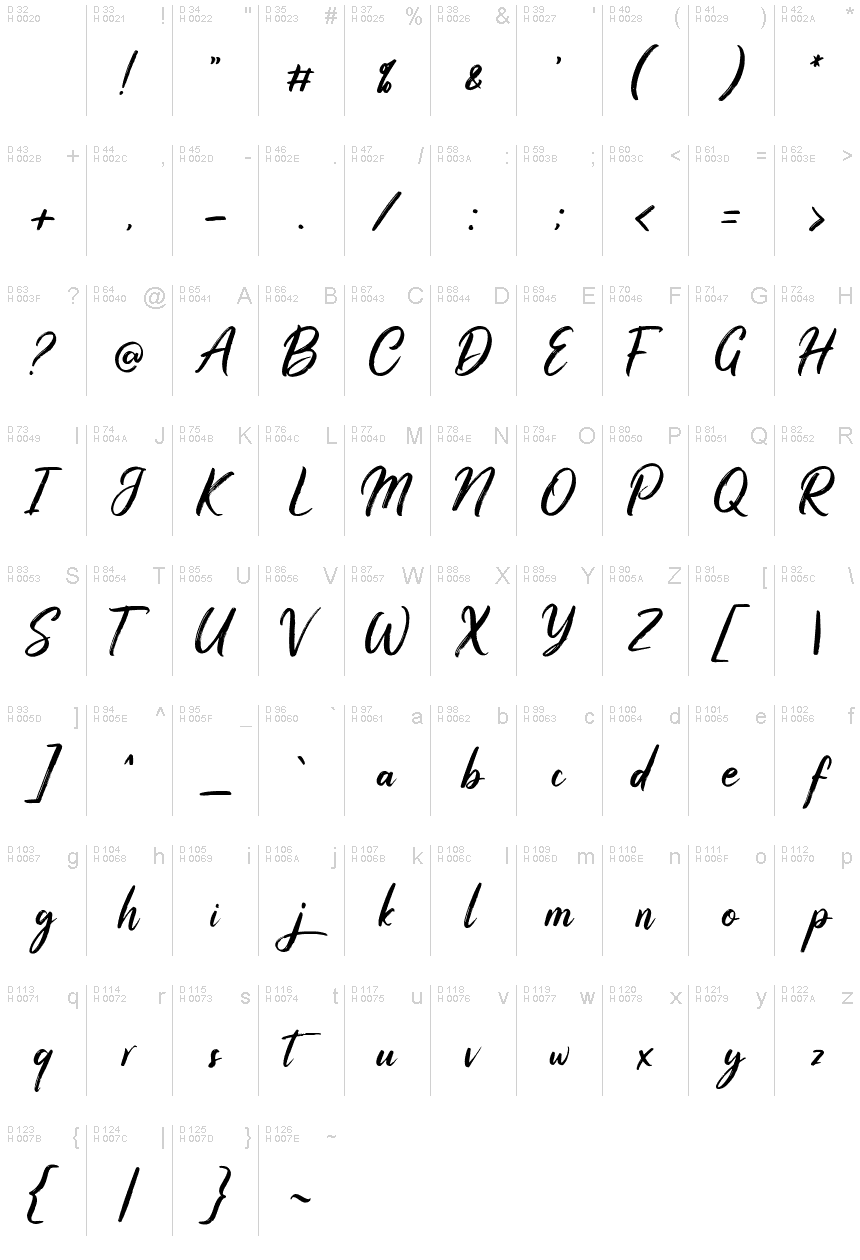
Stellani Alt Demo
Introducing new my font is called "STELLANI".
This font is very good with additional alternatives to complement your needs. With texture make this font look natural, very suitable to make a branding, magazine, fashion, quotes, logo, and other.